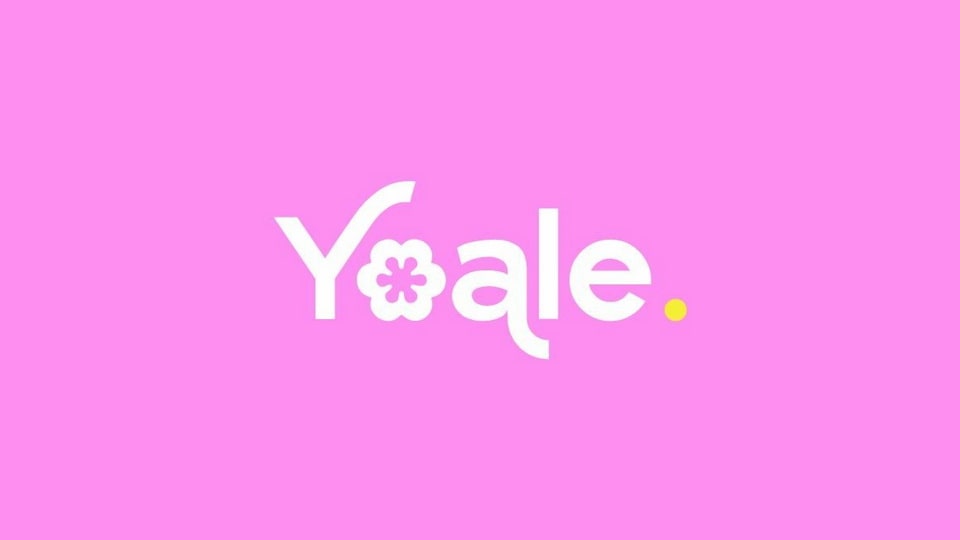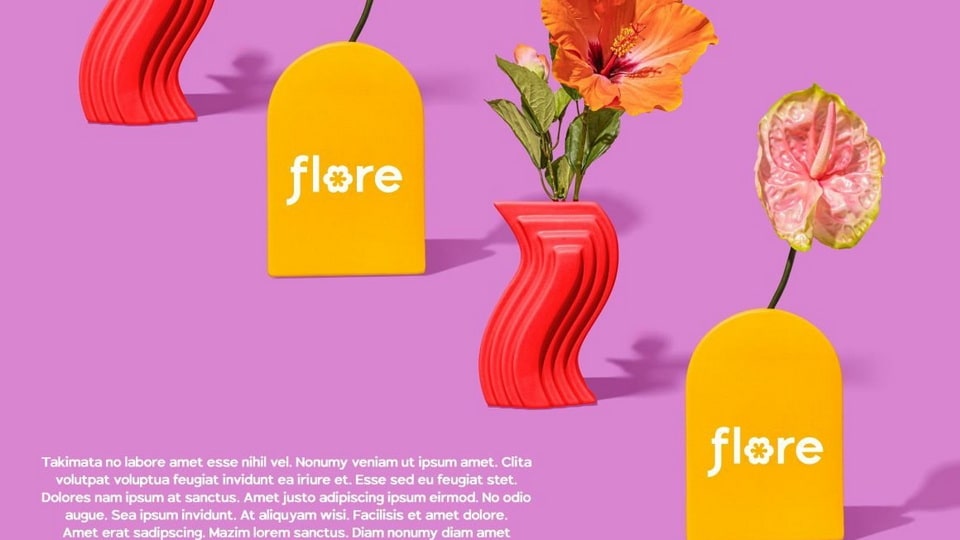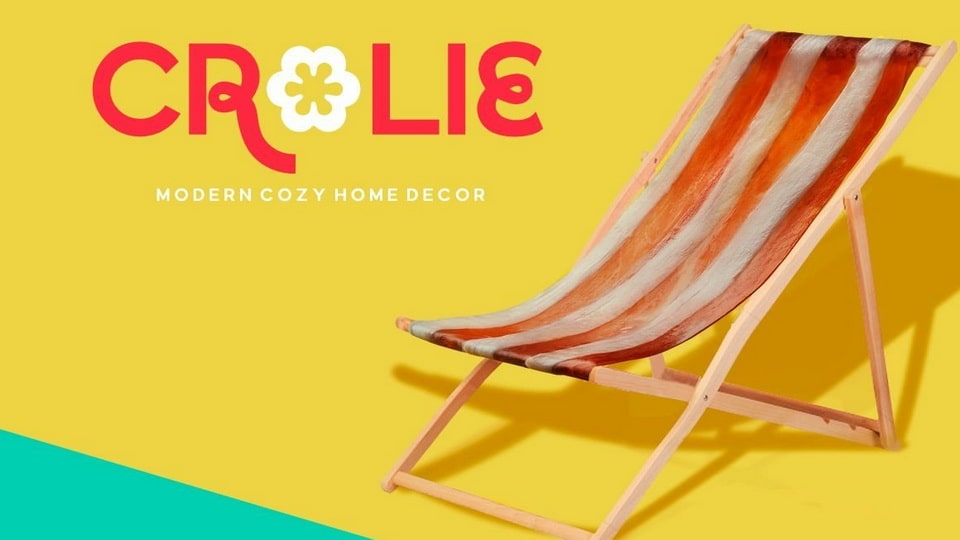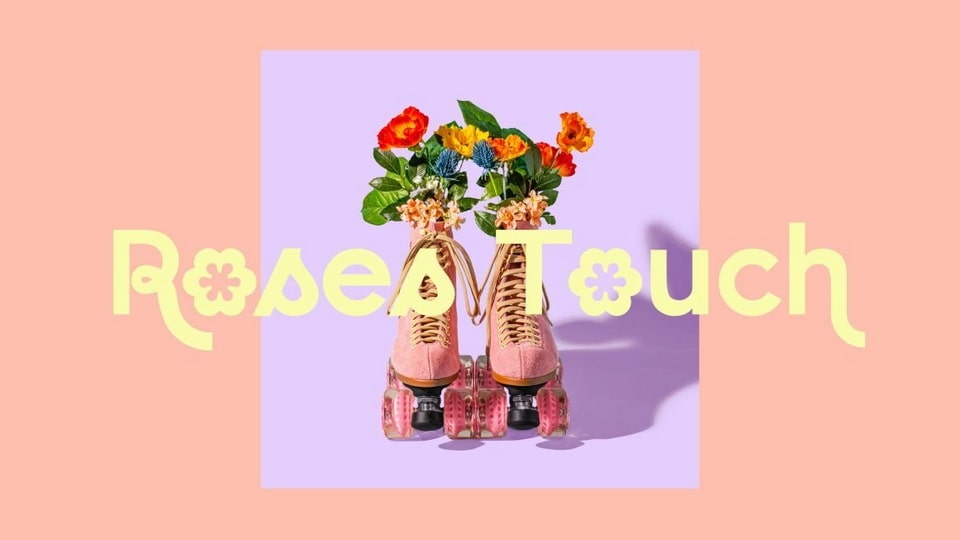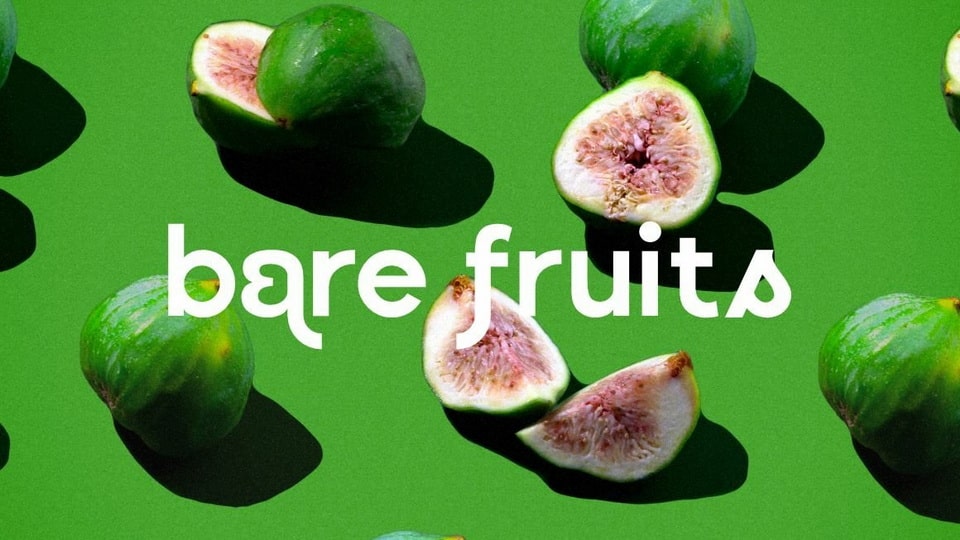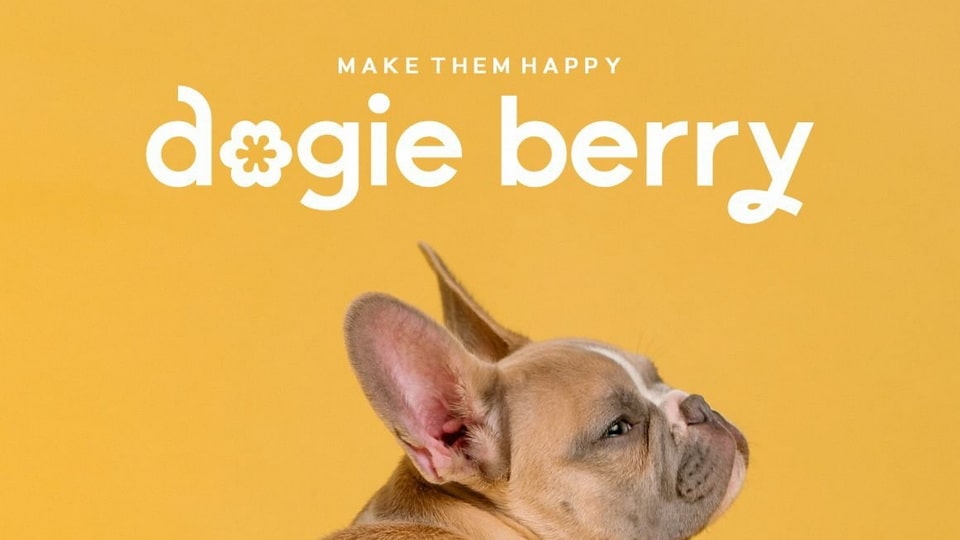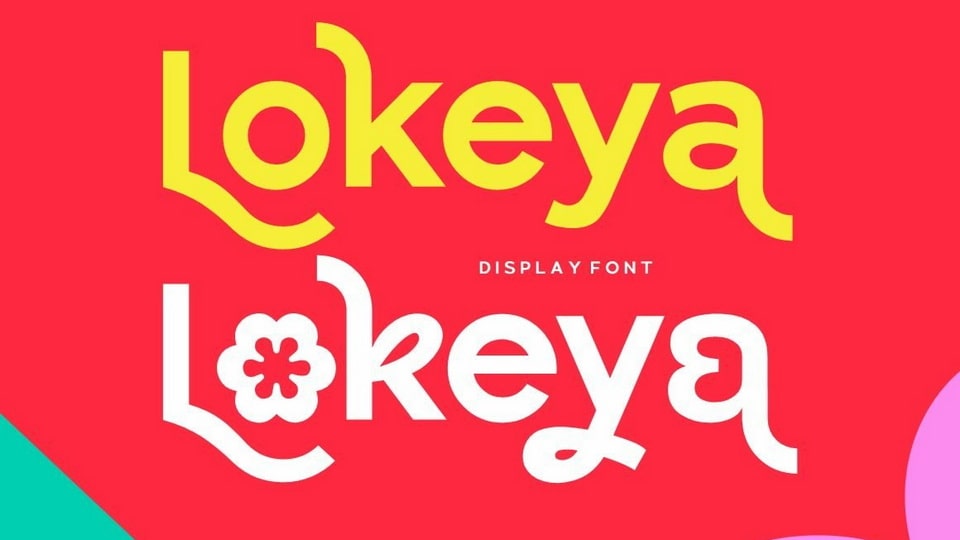
Lokeya Font
Lokeya is a clean, cute, modern and playful sans serif typeface. Lokeya contain several stylistic alternates that can make it unique and different. You can mix & match it to create the perfect combination of your design.
Lokeya is perfect for branding projects, logo design, clothing branding, product packaging, magazine headers, or any kind of advertising purpose.